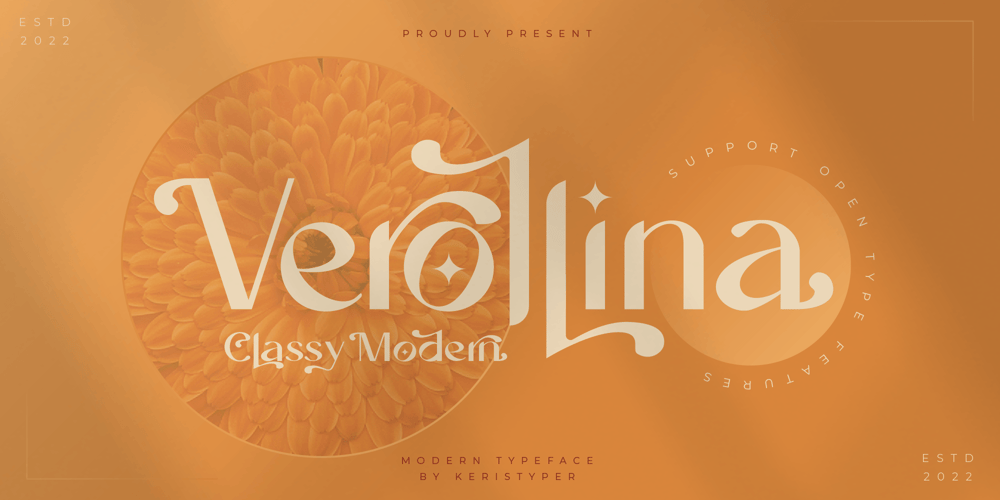
Verollina Font Family was designed by Tezar Tantular and published by Keristyper Studio. Verollina contains 1 styles and family package options. introduce Verollina, It is a minimalist elegant modern vintage font. This font is good for logo design, Social media, Movie Titles, Books Titles, short text even long text letters, and good for your secondary text font with sans or serif.**Featured:*** Standard Uppercase & Lowercase* Numeral & Punctuation* Multilingual : ä ö ü Ä Ö Ü ß ¿ ¡* Alternate & Ligature* PUA encodedWe recommend programs that support the OpenType feature and the Glyphs panel such as Adobe applications or Corel Draw. so you can use all the variations of the glyphs.Hope you enjoy our fonts!